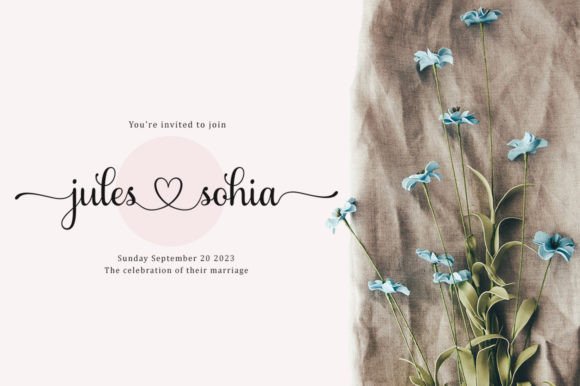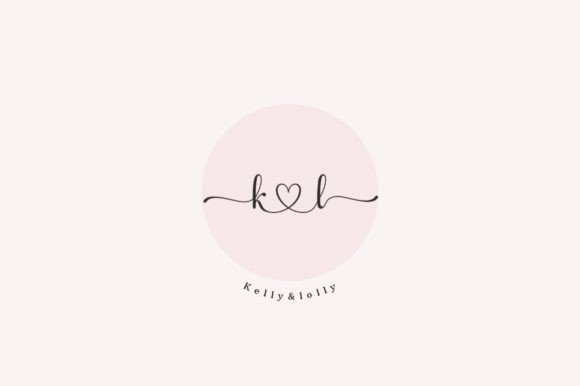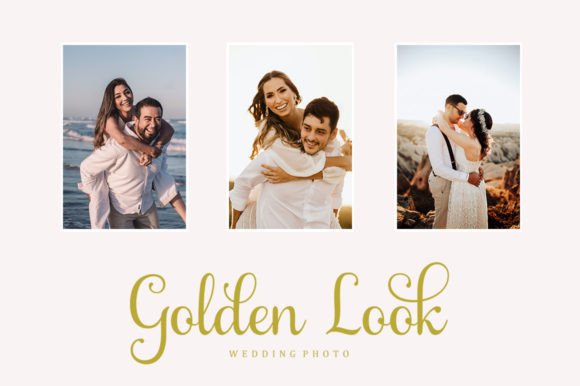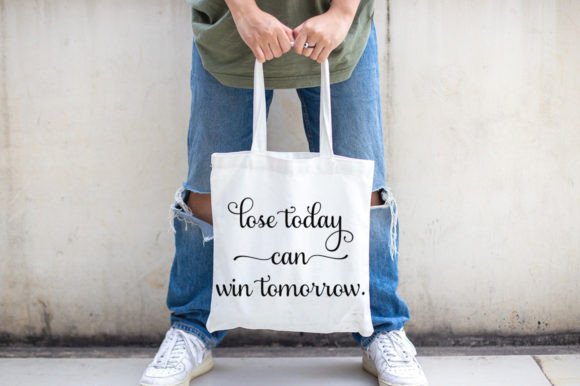
About Hailey Honey Font
Hailey Honey feels equally charming and elegant. It looks lovely on wedding invitations, thank you cards, quotes, greeting cards, logos, business cards, and every other design which needs a handwritten touch. It features a varying baseline, smooth lines, gorgeous glyphs, and stunning alternates.